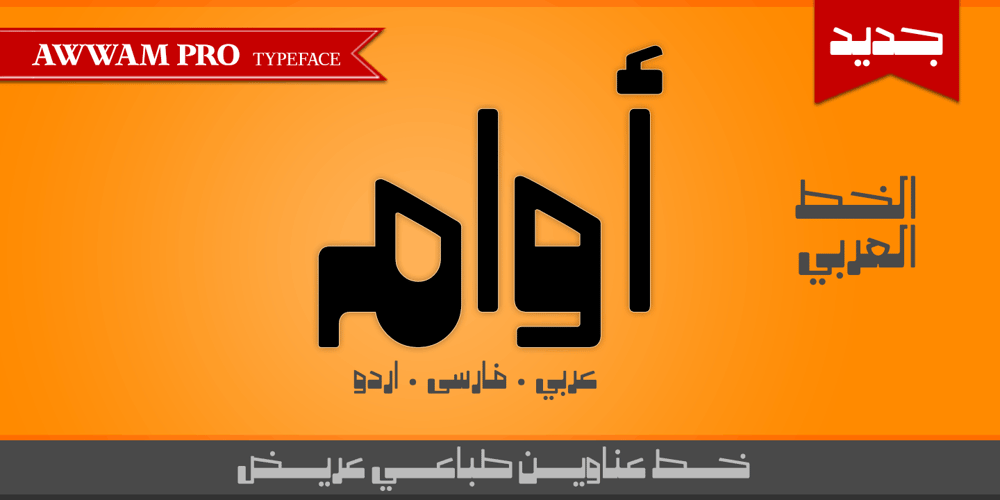
Awwam
Awwam font
Awwam Font Family was designed by Eyad Al-Samman and published by Eyad Al-Samman. Awwam contains 2 styles and family package options. Awwam refers to the region of Awwam which is now thought by most scholars to be Ma’rib or the famous temple of Awwam otherwise known as Mahram Bilqis. The Awwam temple—Arabic Haram Bilqis or Mahram Bilqis—is a Sabaean temple near Ma’rib in today’s Yemen. It was built by Mukarrib ‘Yada’il Dharih I’ between the 7th and 5th century B.C. Also, one of the most frequent titles of the God ‘Almaqah’ was the Lord of Awwam. Almaqah was the main God of the ancient Yemeni kingdom of Saba’ and also the kingdoms of D’mt and Aksum in Eritrea and Northern Ethiopia. Different members of the ruling dynasties of Saba’ regarded themselves as Almaqah’s children.Awwam is a wide and headline Arabic display typeface. The main trait of this typeface is the wide, curved, and streamlined design of its wide kashida, letters, and ligatures. This feature renders it as one of the modern stylish typefaces used for headlines, titles, headers, banners, and captions. Among the distinguished letters of Awwam typeface are the “Alef”, “Qaaf”, “Waaw”, “Yaa”, “Gheen”, and others. Moreover, Awwam typeface has a character set which supports Arabic, Persian, Urdu, and simple Latin letters/numerals with a limited range of specific Arabic and Latin ligatures. This typefac comes in two styles (i.e., Awwam, and Awwam-Pro) with a single weight (i.e., regular) and nearly 650 distinctive glyphs for each style.Due to its ultra-wide design, Awwam typeface is mostly appropriate for headings and titles in Arabic, Persian, and Urdu. It can be graphically and visually exploited in books, novels, magazines, newsletters, pamphlets, posters, and interfaces of other objects such as clothes and equipment. Moreover, it can be pleasingly used for signs, books’ covers, advertisement light boards, and titles of flyers, and books of children and adults. In brief, Awwam typeface is one of the new wide Arabic typefaces which can be utilized efficiently in diverse graphic, typographic, and artistic works for different languages and cultures.